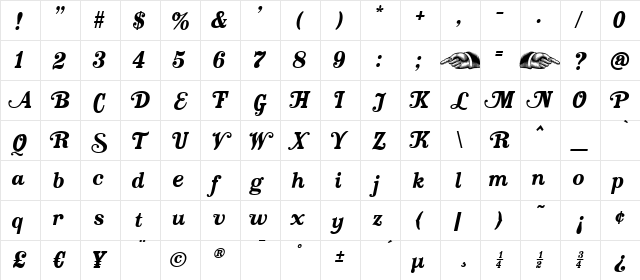
Country Western Swing Black Regular
| Designer | Michael Hagemann |
Design Context for Country Western Swing Black Typeface
Country Western Swing Black echoes the hand-painted signage and woodblock typography of the American frontier, with a warm, rugged personality.
Perfect for barbecue restaurants, country music branding, vintage poster design, and rustic packaging.
Font Pairing: Combine Country Western Swing Black with a simple slab or neutral sans — period-accurate companions reinforce the vintage feel without competing for attention.
Pro Tip: Pair Country Western Swing Black with aged textures or distressed backgrounds to amplify its vintage personality.